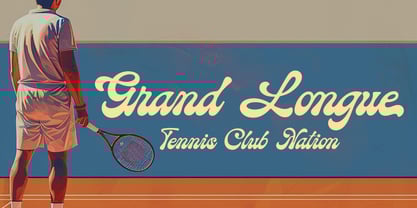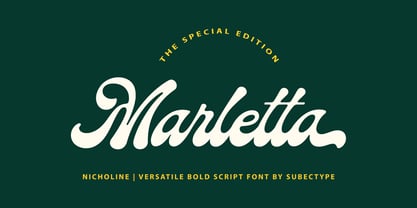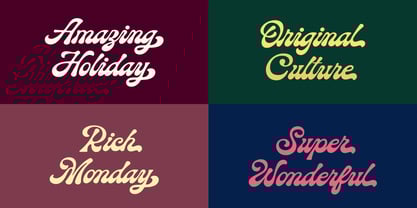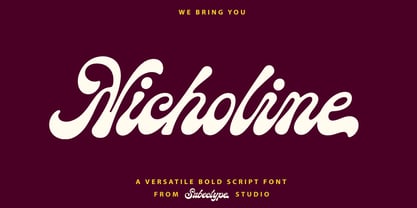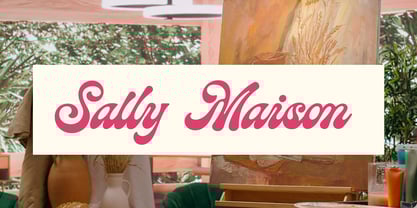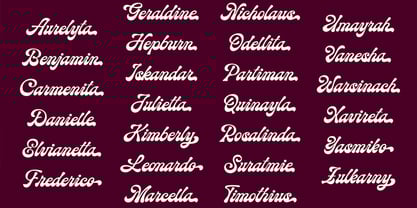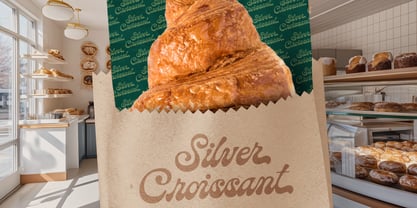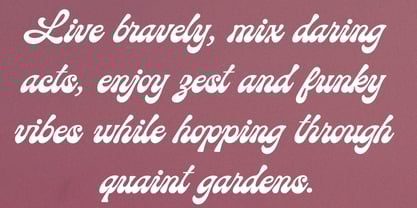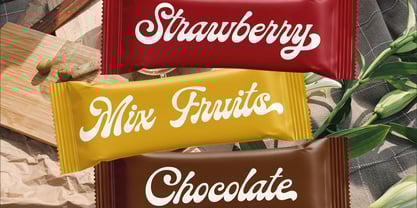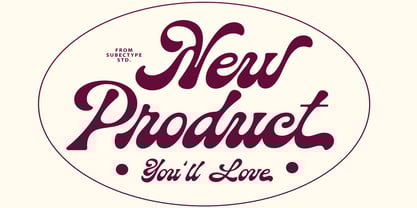
Nicholine
von Subectype
Die Schriftfamilie Nicholine wurde von Rangga Subekti entworfen und von Subectype veröffentlicht. Nicholine enthält 1 Stile. Mehr über diese Familie
"Nicholine" is a cozy, modern retro font that captures the warmth of nostalgia while offering a contemporary touch. It features rounded edges and playful curves, making it perfect for designs that aim to evoke comfort and familiarity. Ideal for branding, invitations, and various creative projects, this font combines a friendly aesthetic with legibility, making it a delightful choice for any design needing a touch of warmth and charm.
Designer: Rangga Subekti
Aktuelle Foundry: Subectype